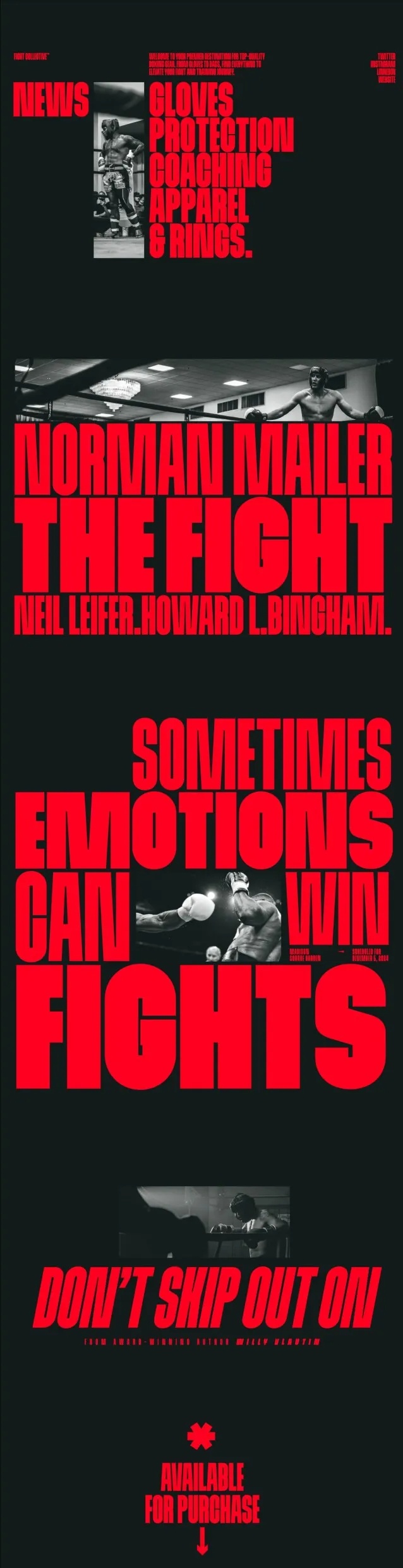
Round 8 takes its name from the eighth round of the 1974 fight between Muhammad Ali and George Foreman in Kinshasa, the round Ali won. The type is just as tight. Letters are extremely narrow and heavy, with almost no space inside them, and the specimen calls it the greatest Atipo heavyweight typeface of all time.
The preview is a boxing magazine layout: NORMAN MAILER THE FIGHT and SOMETIMES EMOTIONS CAN WIN FIGHTS stacked in red over black and white photos. It is capitals only. The download here is one OTF file.
Best uses for Round 8
- Sports magazines and posters
- Boxing and gym branding
- Film titles
- Editorial headlines
- Protest and campaign posters
Round 8 is so narrow that a wider text face balances it. Work Sans is a good fit. Libre Franklin works for captions in a magazine layout.